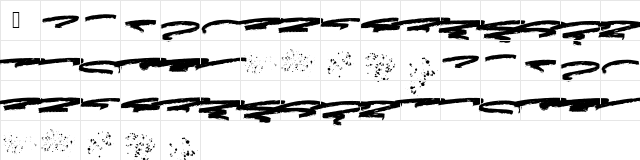
Complete Grunger Swash Regular glyph index. Displaying only characters natively supported by Grunger Swash Regular font.
Grunger Swash embraces imperfection - its rough, textured character adds raw authenticity to designs that want to feel lived-in and unconventional.
Pro Tip: Use Grunger Swash at larger sizes where the texture and irregularity of each letterform can be clearly seen - it loses its character at small sizes.